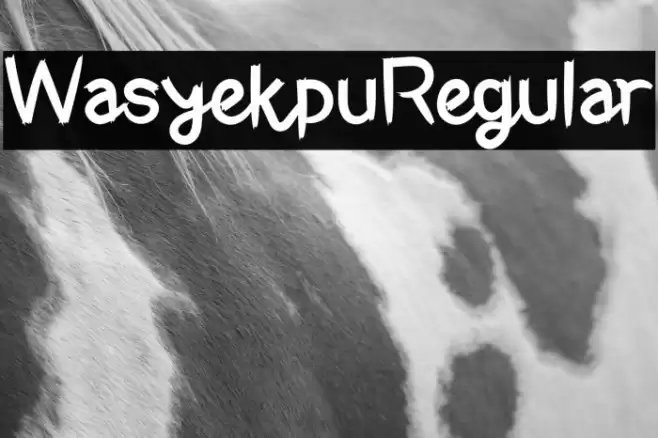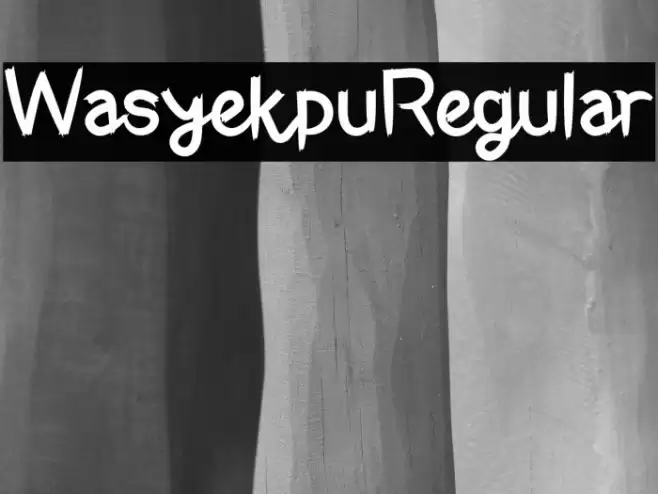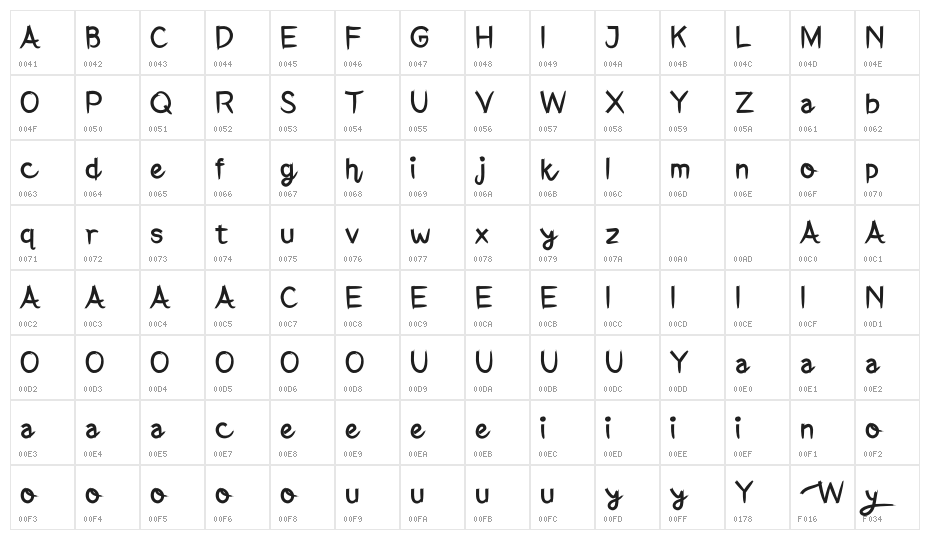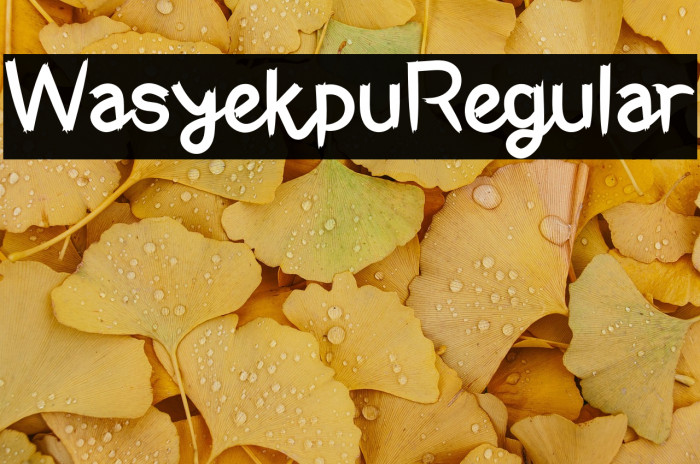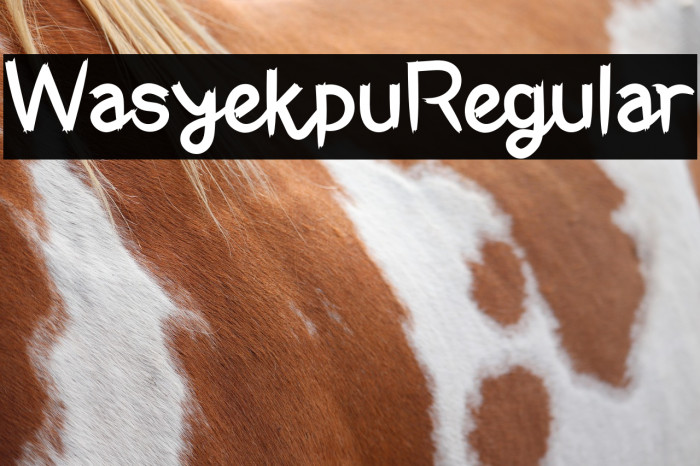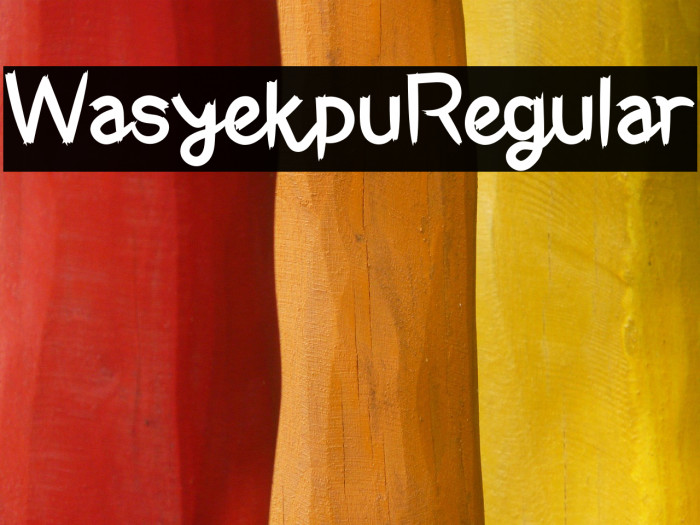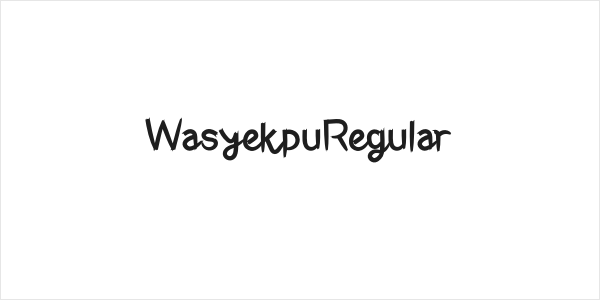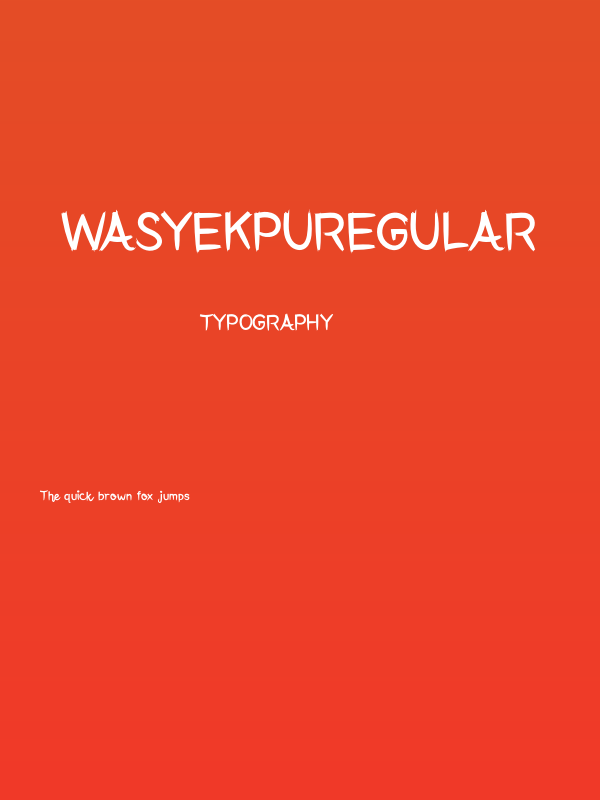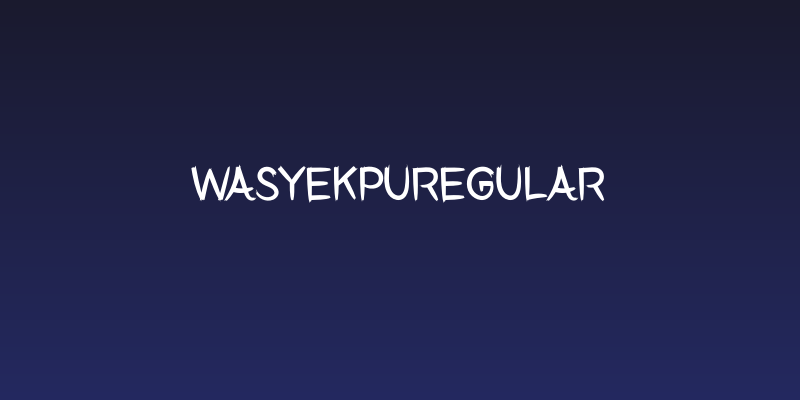
WasyekpuRegular Font
WasyekpuRegular Description
This font features a playful and dynamic style with a handwritten appearance. The characters are bold and slightly irregular, giving them a lively and energetic feel. The uppercase letters are tall and slightly narrow, while the lowercase letters maintain a consistent flow with rounded edges. The strokes are thick with a medium contrast, adding to the font's boldness. The overall design is informal and friendly, making it suitable for creative and casual projects. The spacing between characters is normal, ensuring readability while maintaining its unique style.
A playful, handwritten font with bold, dynamic strokes and medium contrast from Uncategorized fonts.
- Proposed Projects: Ideal for children's books, greeting cards, posters, and creative branding projects.
- Overall Style: Playful, Informal
- Use Case: Headlines, Creative projects